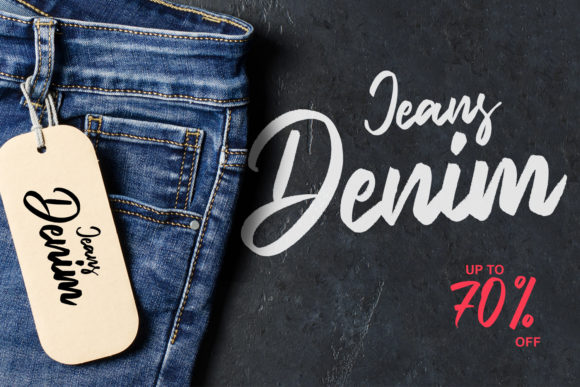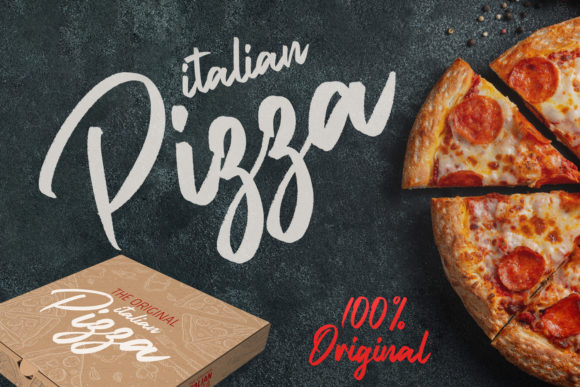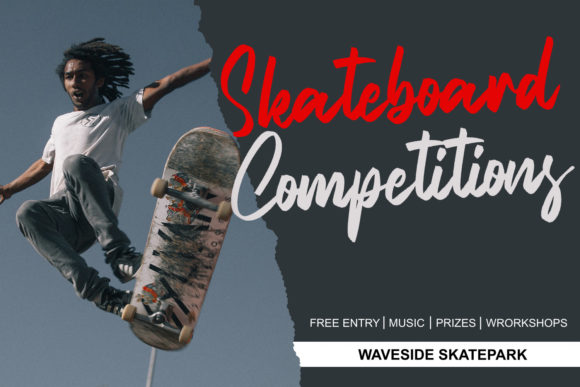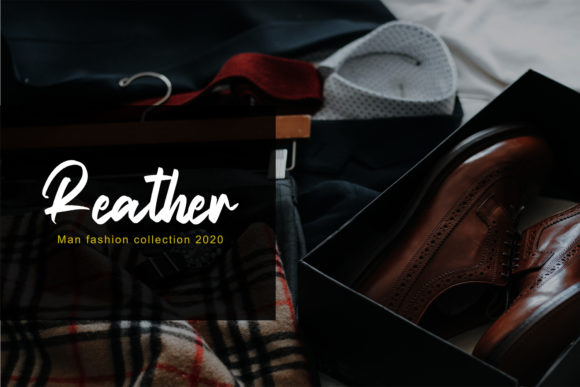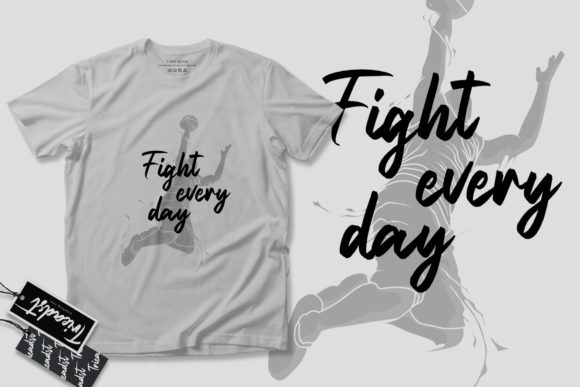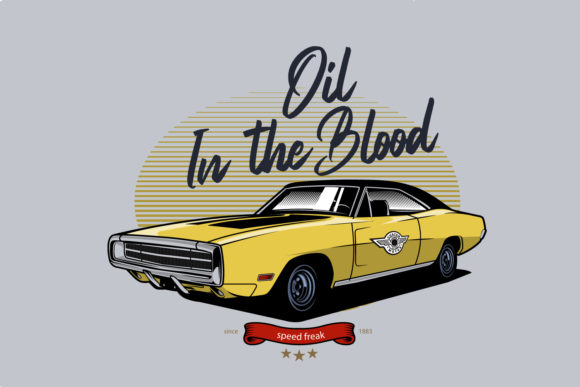
Discover the Elegance of Fight Side Font: A Versatile Choice for Designers
When it comes to selecting the perfect font for a design project, the options can be overwhelming. However, if you’re looking for a font that exudes charm and elegance, look no further than Fight Side Font. This beautiful font has a unique flow that makes it incredibly versatile, suitable for a wide range of applications, from quotes and headlines to logos and more.
The Charm of Fight Side Font
Fight Side Font feels equally charming and elegant, making it an excellent choice for designers who want to add a touch of sophistication to their work. Its elegant curves and lines create a visually appealing aesthetic that is sure to capture the attention of your audience. Whether you’re working on a branding project, a website, or a marketing campaign, Fight Side Font is an excellent choice.
One of the standout features of Fight Side Font is its versatility. Its nice flow makes it suitable for a wide range of applications, including:
- Quotes: Add a touch of elegance to your quotes with Fight Side Font. Its flowing lines and curves create a beautiful visual effect that will make your quotes stand out.
- Headlines: Make a statement with Fight Side Font. Its bold and elegant design makes it perfect for headlines, adding a touch of sophistication to your content.
- Logos: Create a lasting impression with Fight Side Font. Its unique flow and elegant design make it an excellent choice for logos, helping to establish your brand identity.
- and more: The versatility of Fight Side Font doesn’t stop there. You can use it for a wide range of applications, from business cards to billboards, and everything in between.
Why Designers Love Fight Side Font
Designers love Fight Side Font for its unique combination of charm and elegance. Here are just a few reasons why:
- Elegant Design: Fight Side Font has an elegant design that adds a touch of sophistication to any project.
- Versatility: Its versatility makes it suitable for a wide range of applications, saving designers time and effort.
- Easy to Read: Fight Side Font is easy to read, making it perfect for body text and headlines.
Tips for Using Fight Side Font
Here are a few tips for using Fight Side Font in your design projects:
- Pair it with a sans-serif font: Pair Fight Side Font with a sans-serif font to create a beautiful contrast that adds visual interest to your design.
- Use it for headlines: Fight Side Font is perfect for headlines, adding a touch of elegance and sophistication to your content.
- Experiment with colors: Fight Side Font looks great in a variety of colors, so don’t be afraid to experiment and find the perfect color scheme for your design.
In conclusion, Fight Side Font is a versatile and elegant font that is perfect for designers who want to add a touch of sophistication to their work. Its unique flow and charming design make it suitable for a wide range of applications, from quotes and headlines to logos and more. Whether you’re a seasoned designer or just starting out, Fight Side Font is an excellent choice for your next design project.